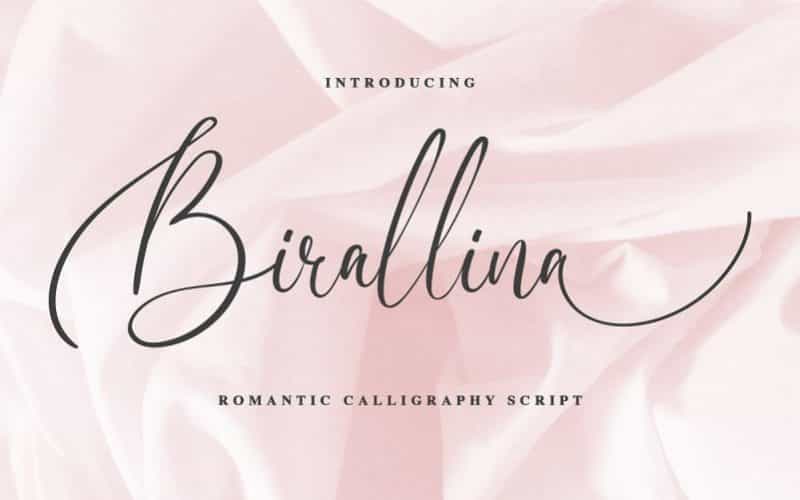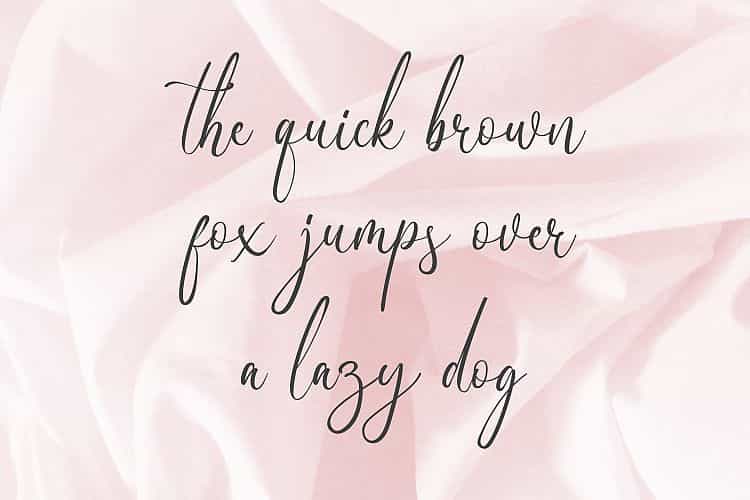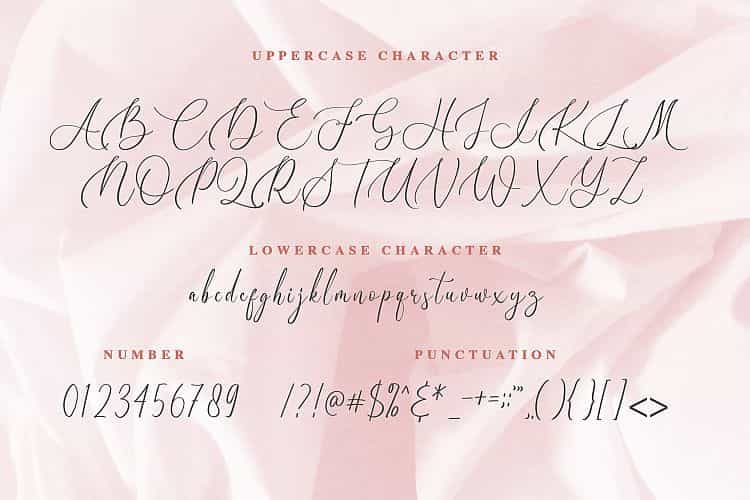
Discover Birallina Calligraphy Font, part of the Calligraphy collection—a versatile and unique font perfect for adding a personal touch to your projects. Download it for free and enjoy crafting designs with style, from invitations to social media posts. This font is available exclusively for personal use, giving you the freedom to create without limits. Unlock your creativity with Birallina Calligraphy Font today!
The new calligraphy script named Billarina was introduced. Billarina is a great choice for a signature logo, wedding invitation, romantic quote, logotype, poster, social media kit, book cover, tshirt design, packaging and any other.